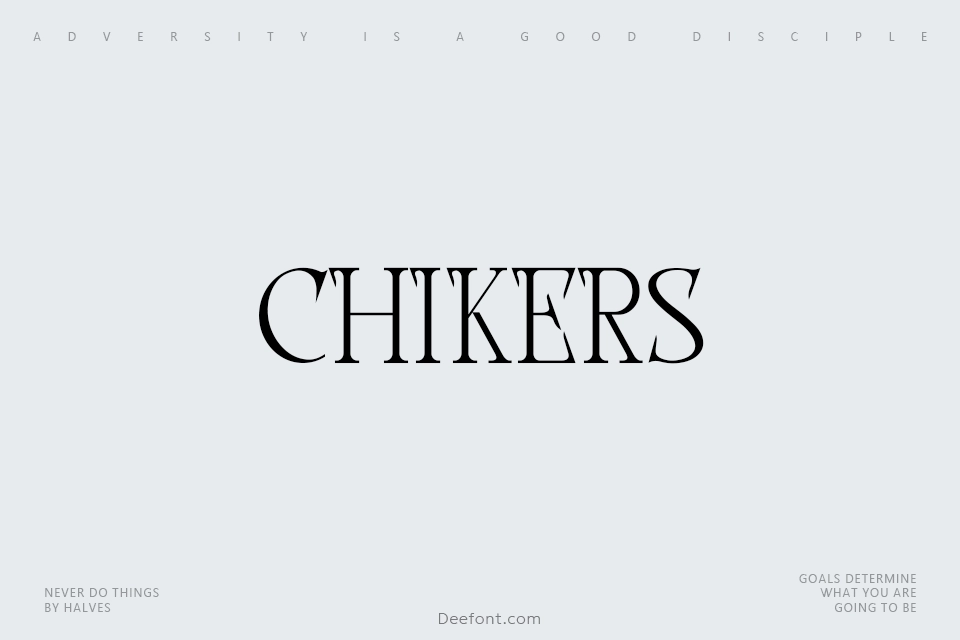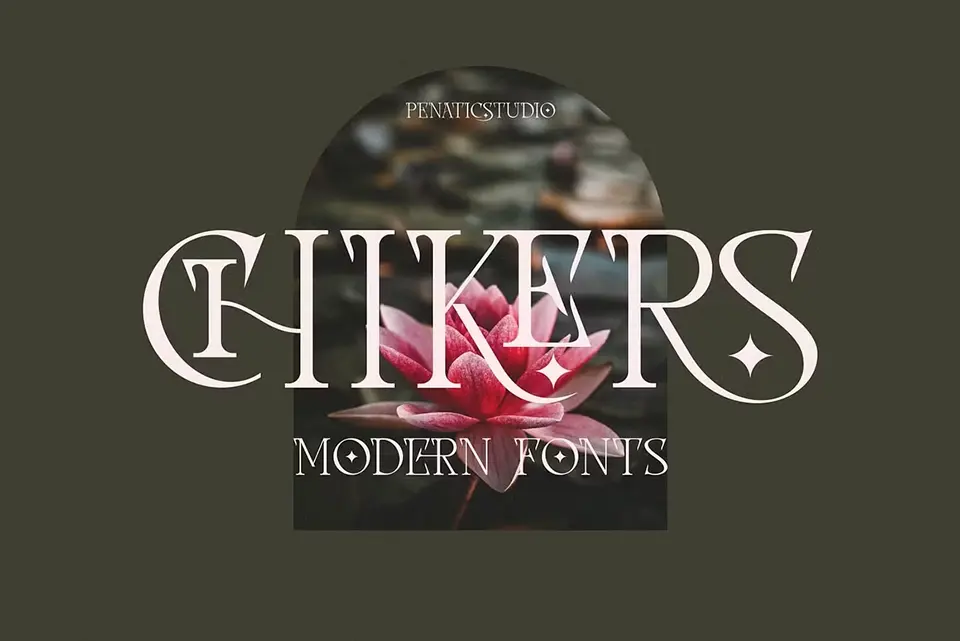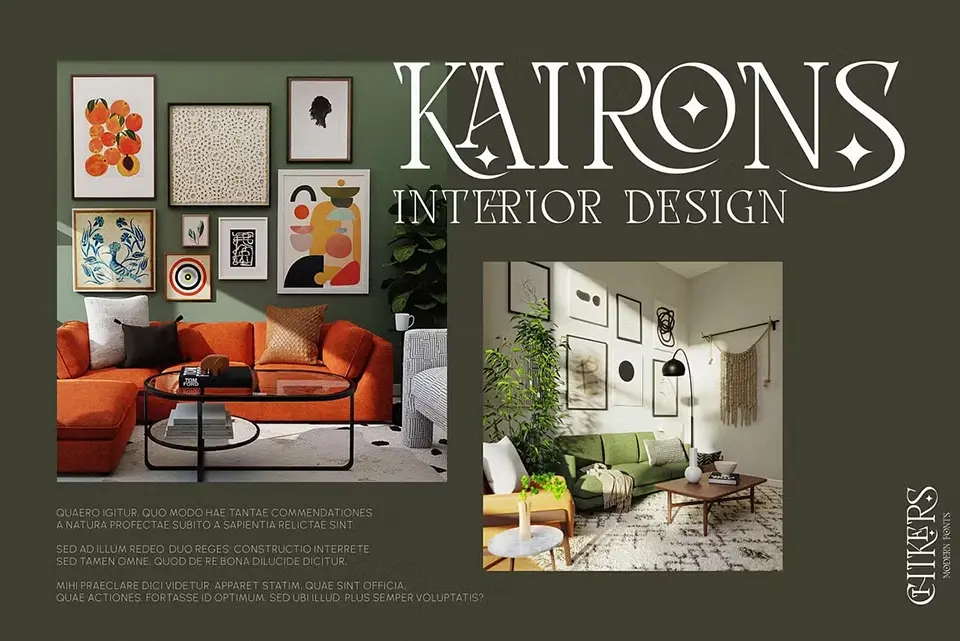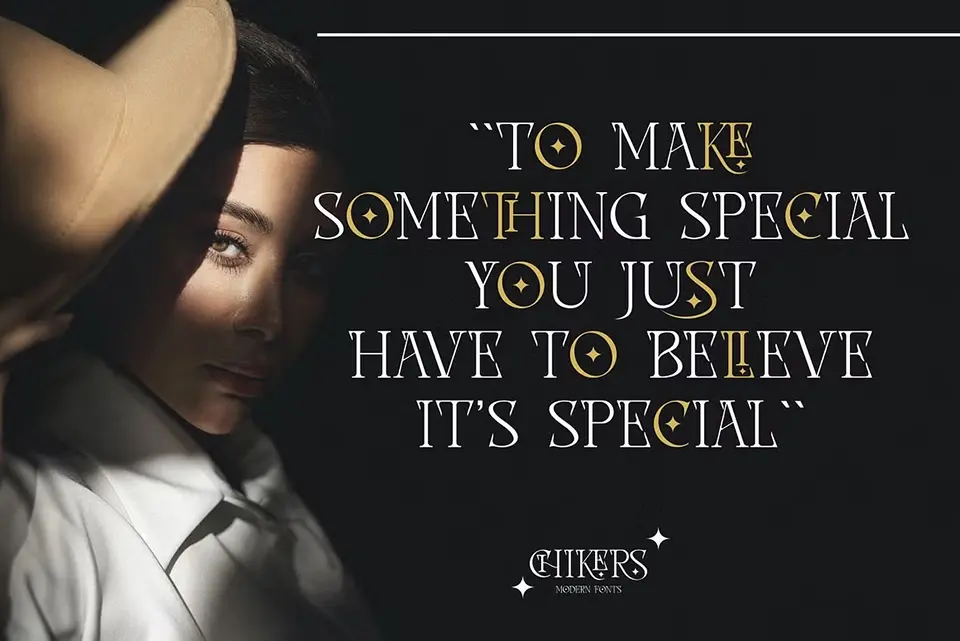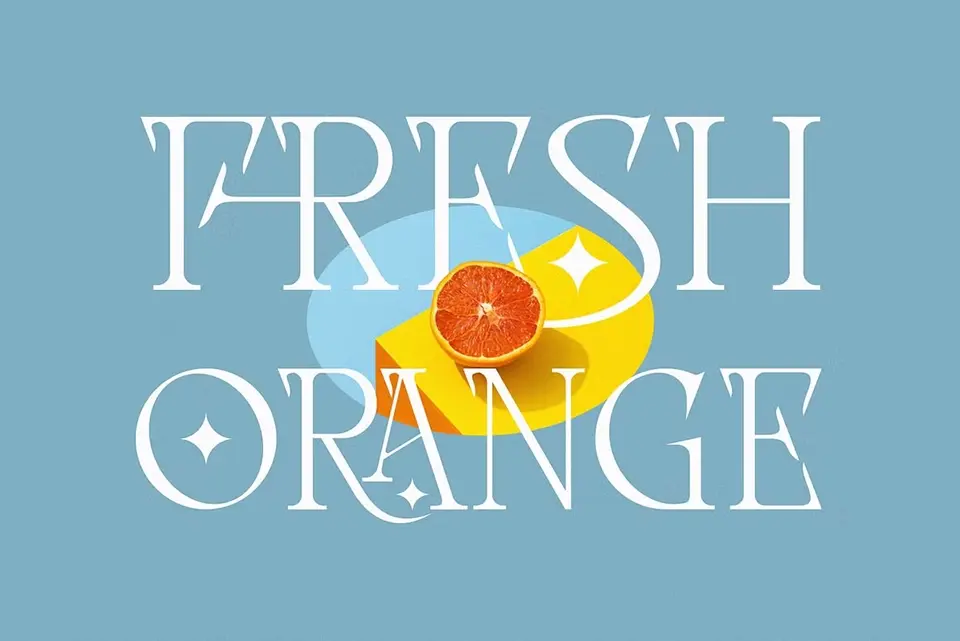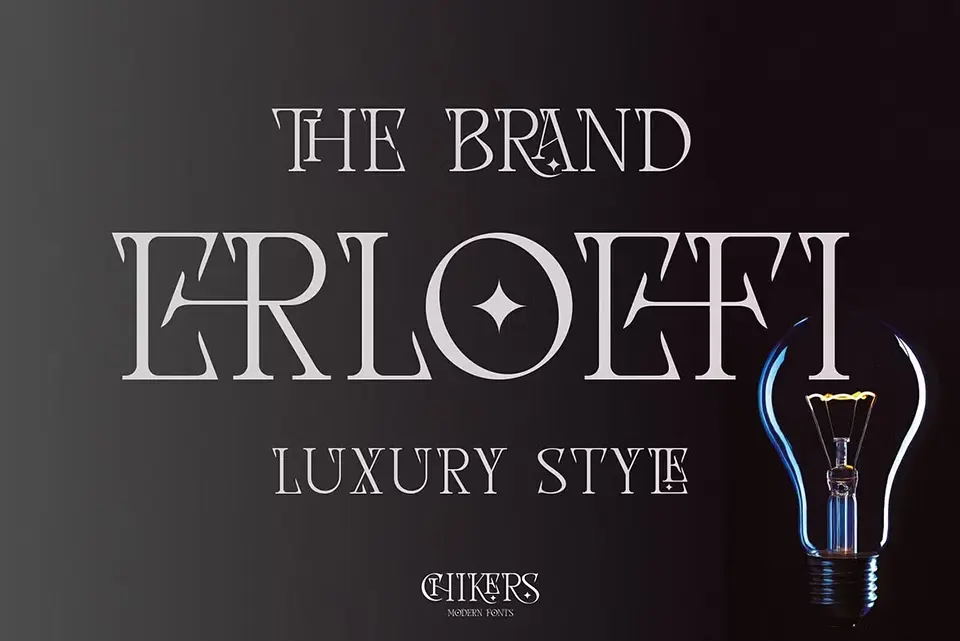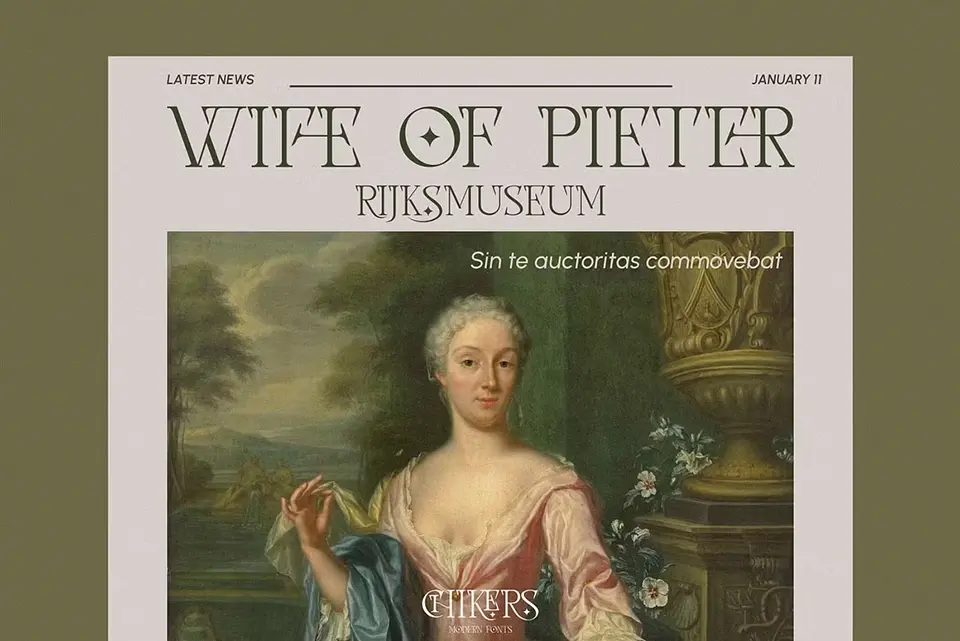
Chikers Font
Chikers is a captivating modern serif font with a semi-light weight that brings elegance and sophistication to your designs. Featuring clean lines and subtle curves with multiple ligatures and alternations, Chikers is perfect for creating eye-catching logos, elegant invitations, and luxurious packaging. Its professional yet refined aesthetic makes it ideal for branding high-end fashion houses or adding sophistication to premium publications. Whether you’re designing brand identities or magazine templates, Chikers elevates your typography with timeless beauty and contemporary flair.